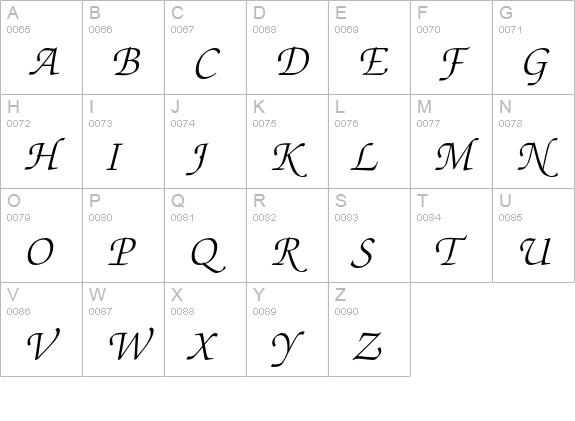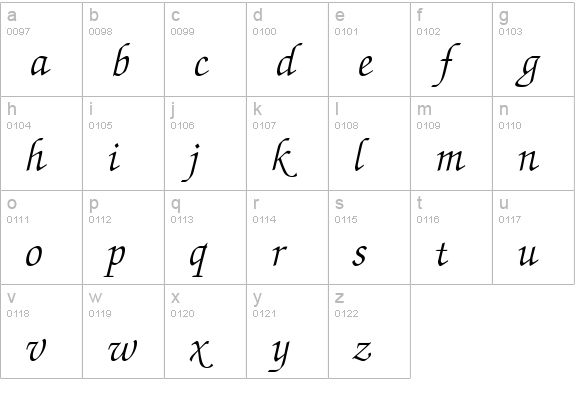
ZapfChanceryEF-LightIta Font Details
ZapfChanceryEF-LightIta is a sophisticated and elegant font that brings a touch of class to any design project. With its delicate curves and graceful lines, this font is perfect for adding a refined and stylish touch to your work. The light italic weight of ZapfChanceryEF-LightIta exudes a sense of sophistication and modernity, making it ideal for use in a variety of applications, from invitations and wedding stationery to logos and branding. What's even better is that ZapfChanceryEF-LightIta is available for free download at FontsMarket.com. This means that you can easily access this beautiful font and use it in your projects without any cost. Whether you are a designer looking to elevate your designs or a business owner wanting to add a touch of elegance to your branding, ZapfChanceryEF-LightIta is a versatile and stylish choice that won't break the bank. Download it today and see how it can enhance your creative endeavors.